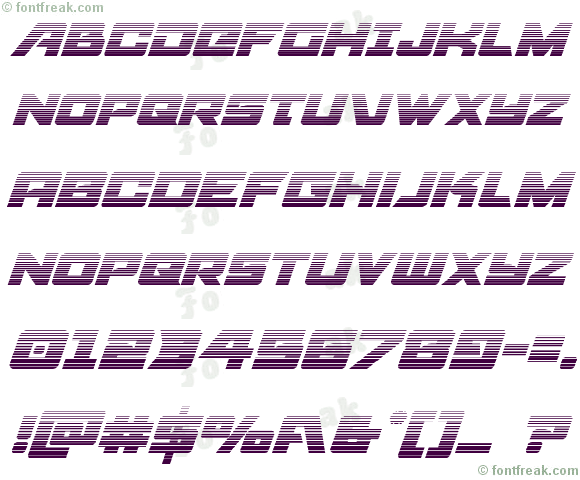
Aircruiser Academy Laser Italic
About Aircruiser Academy Laser Italic
Aircruiser Academy Laser Italic is a striking display font designed by Daniel Zadorozny, falling under the category of decorative typefaces. This font features a unique italicized style that embodies a sense of dynamism and modernity, making it ideal for various creative projects. The strokes are characterized by a bold weight that tapers sharply at the ends, creating a sense of movement. The spacing is well-balanced, allowing for clarity and legibility even at larger sizes. With its 3D effect and gradient elements, this font captures attention and adds depth to any design.
This font is particularly suited for use cases such as movie posters, where a sense of action and excitement is paramount. It can also enhance the visual appeal of event flyers, offering a contemporary touch that resonates with younger audiences. Additionally, Aircruiser Academy Laser Italic can elevate restaurant menus, especially in establishments that wish to convey a modern and unique dining experience. Graphic designers will find this font an excellent choice for branding projects that require a memorable and distinctive typeface. Small business owners can use it for promotional materials, ensuring their marketing stands out in a crowded market.
Targeted primarily at graphic designers, content creators, and small business owners, the Aircruiser Academy Laser Italic font free download provides an accessible option for those looking to make a visual impact. Its innovative design and versatility make it a compelling choice for various applications, from digital media to print.
In conclusion, Aircruiser Academy Laser Italic stands out due to its captivating visual style and adaptability. Its combination of boldness and elegance allows it to shine in any project, making it a must-have font in any designer's toolkit.